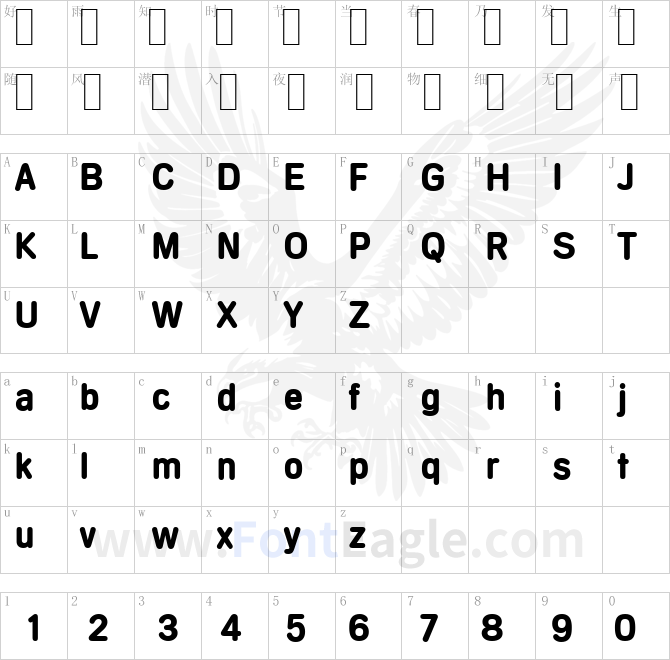
- Font name:MercedesSerial
- Font Subfamily ID:SoftMaker Software GmbH MercedesSerial-Bold
- Font Full Name:MercedesSerial-Bold
- Postscript:MercedesSerialBold